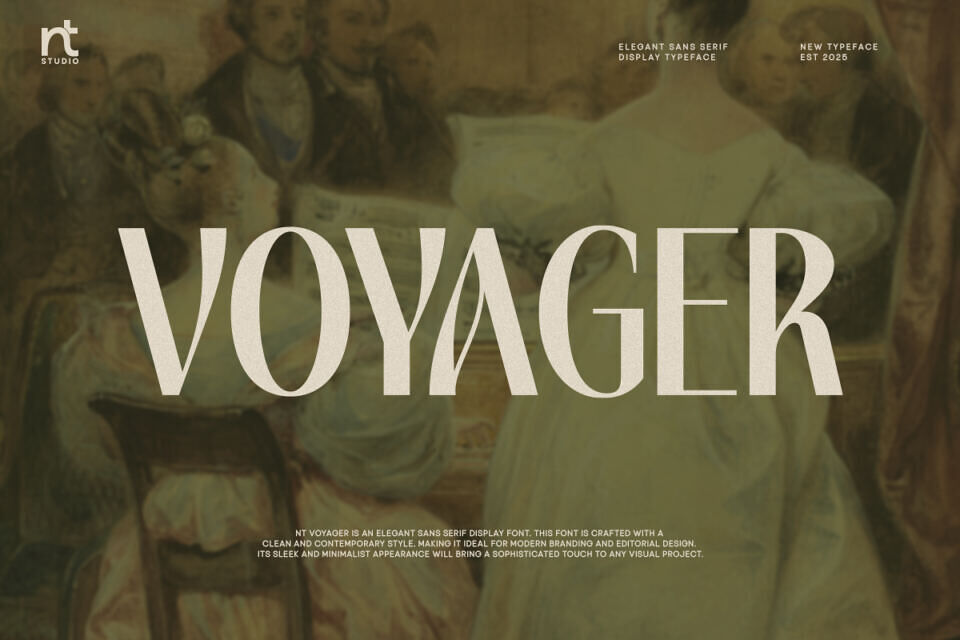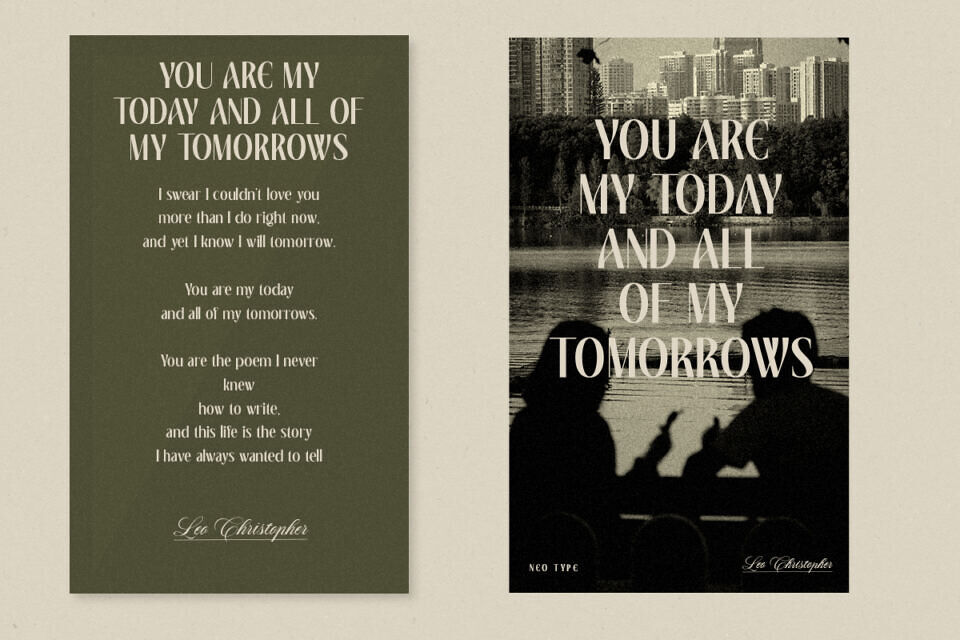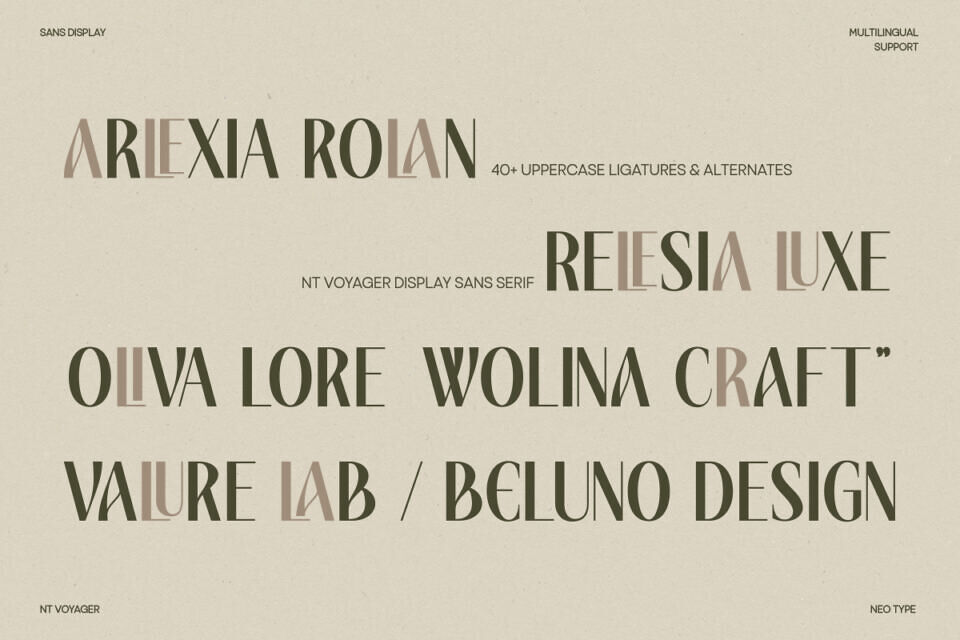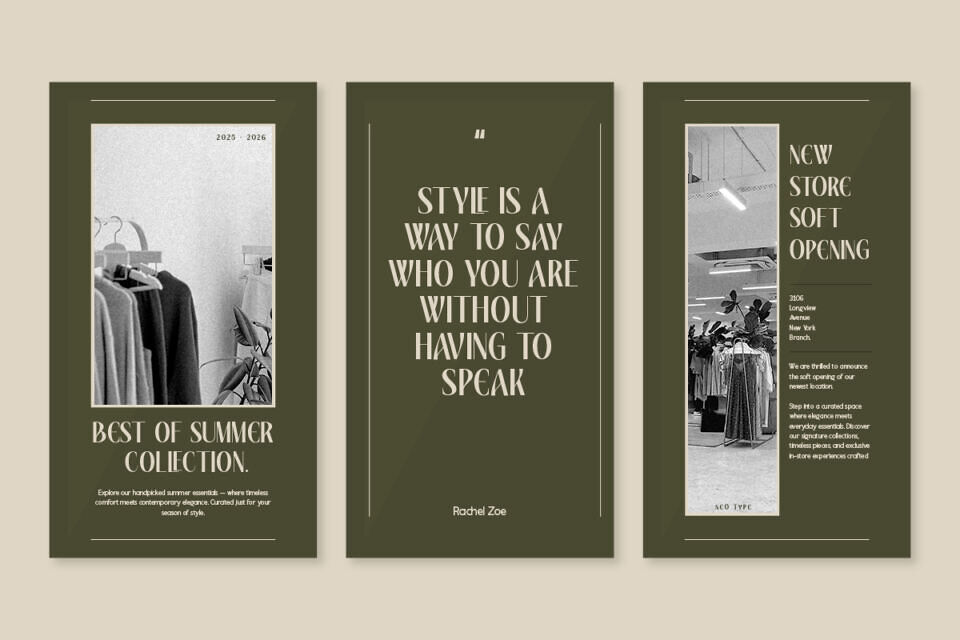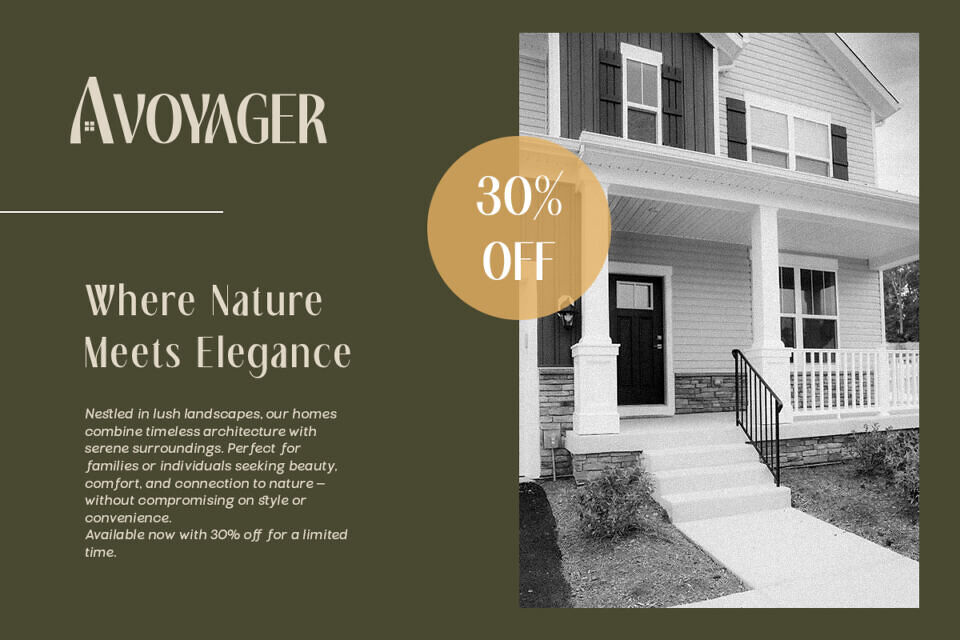
NT Voyager Font
NT Voyager is more than just a font — it’s a journey through space and style. Inspired by the spirit of exploration, its sleek, geometric forms echo the design of futuristic worlds and cosmic travel.
Bold yet refined, NT Voyager is made for those who dare to create, to lead, and to stand out. Whether on a poster or a product, it speaks with clarity, confidence, and a touch of the unknown.